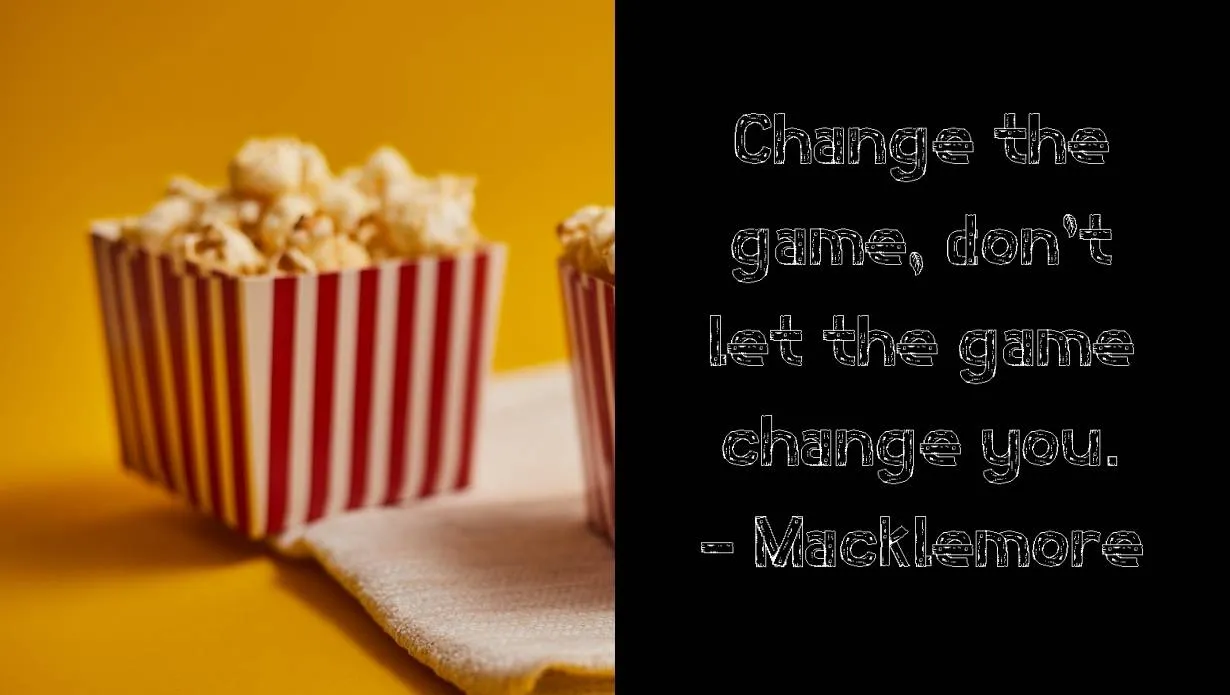
Stardew Valley Font is a classic typeface that was designed by Eliot Truelove. It belongs to the Fancy Font. The design of Stardew Valley Font was inspired by the classic video game, Stardew Valley. This cute font is perfect for titles, quotes, or any display use. It is available in two styles: Regular and Bold.
This awesome font was created to give the players of video games a way to show their interest in the game. It’s a beautiful typeface that can be used for any design project.
Stardew Valley Font Family
If you’re a fan of a famous video game, then Stardew Valley Font is definitely for you. There is another similar Primitive Font that has the same features as this typeface.
| Name | Stardew Valley Font |
| Designer | Eliot Truelove |